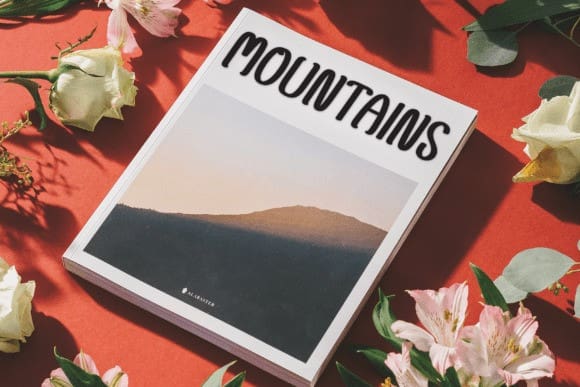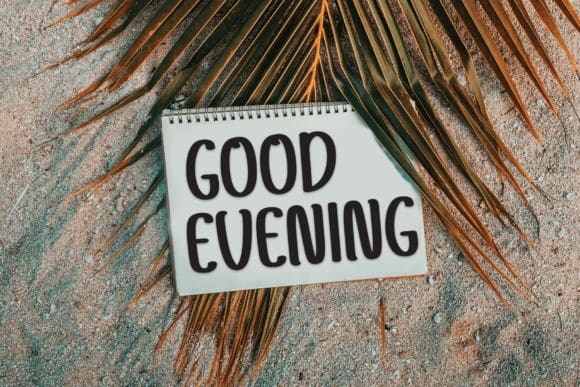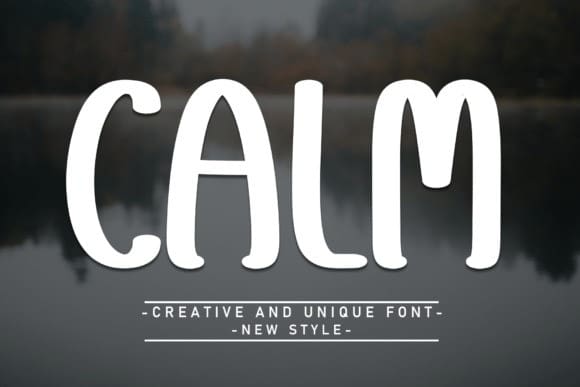
Calm Display Font
Calm Display Font is a sweet and friendly handwritten font. Fresh and cute, this font is ideal for writing wedding invitations, cards, or any other design that might need a fun touch!